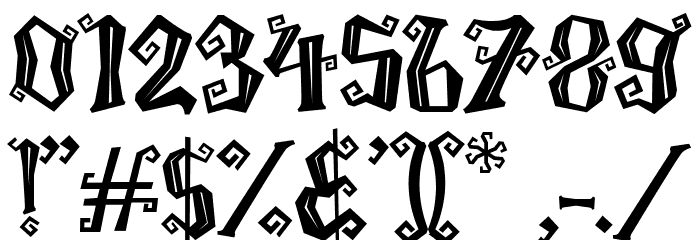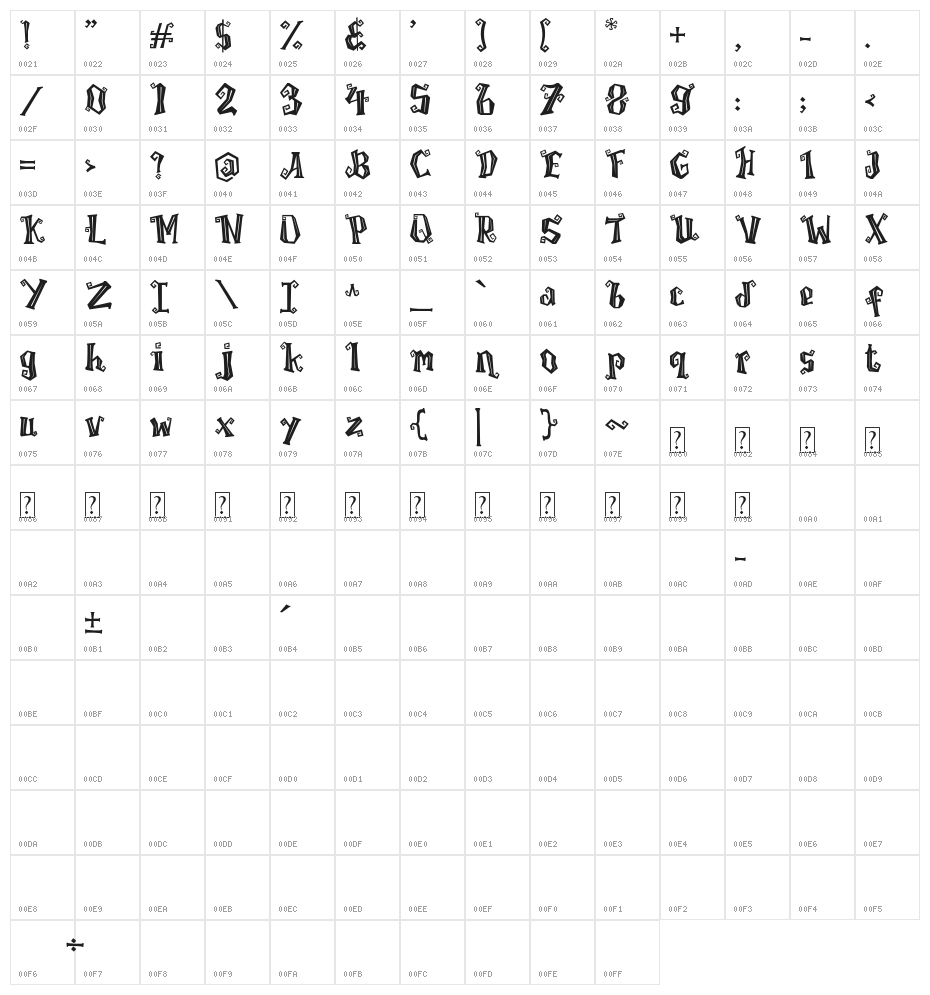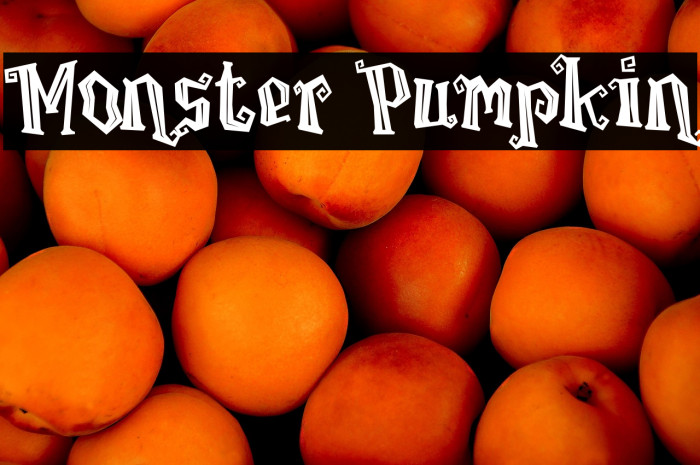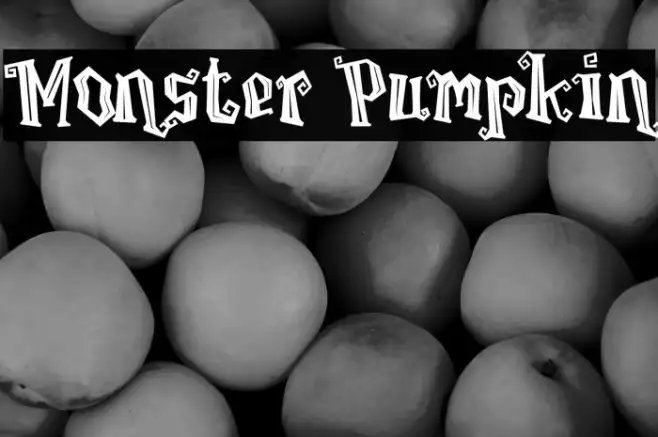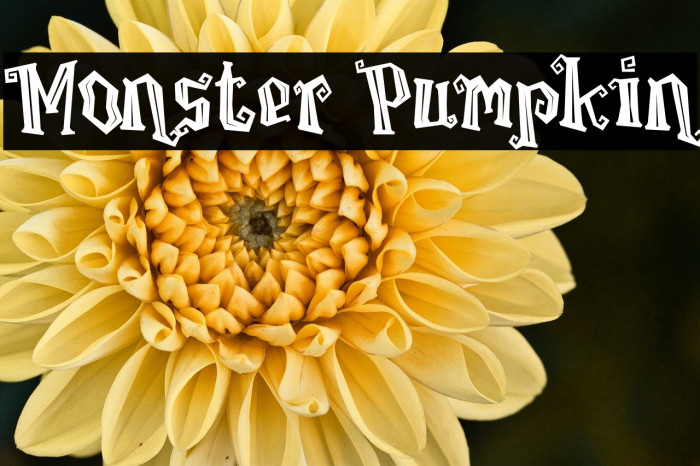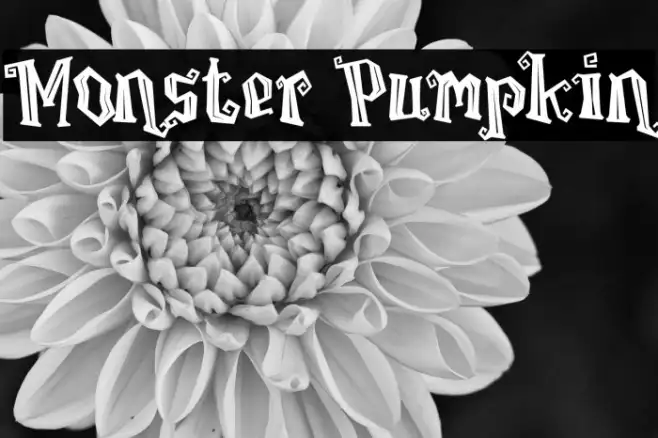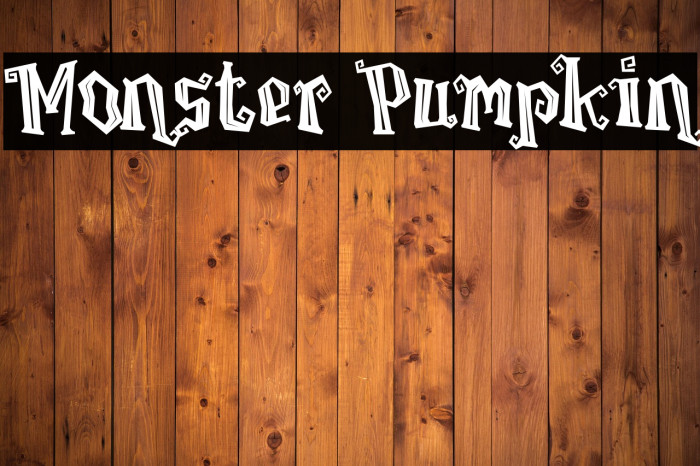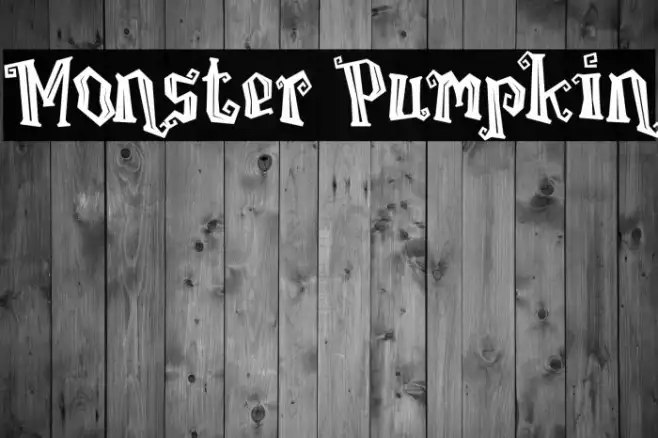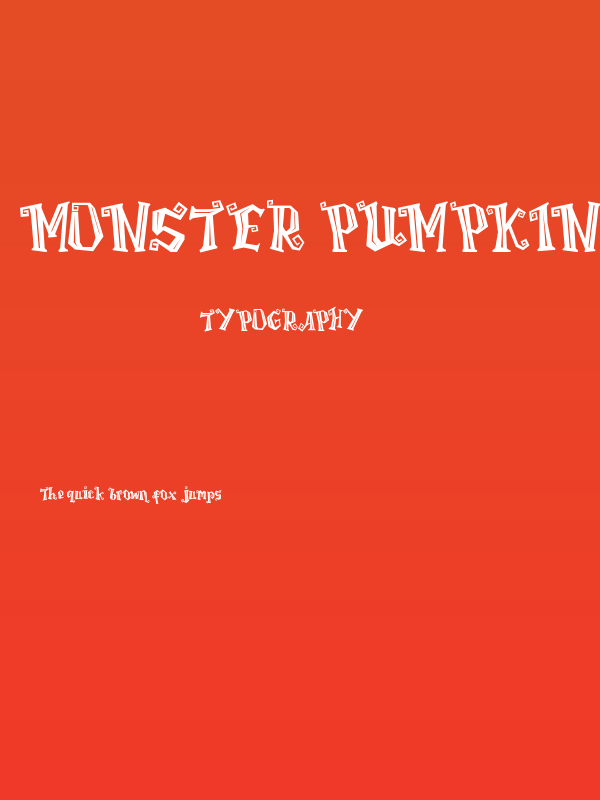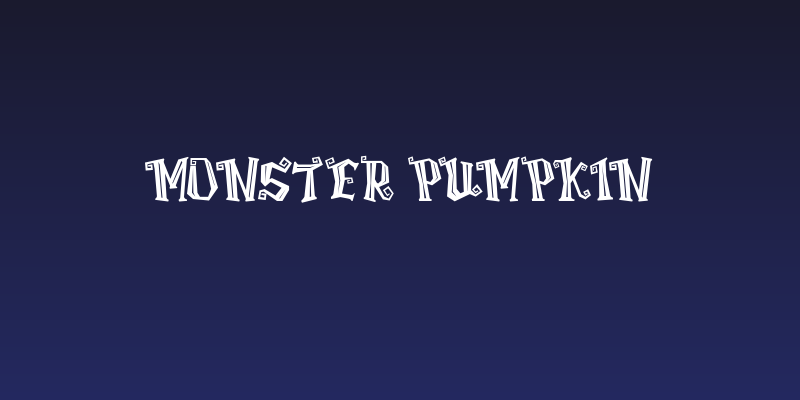
Monster Pumpkin Font
Monster Pumpkin Description
This font features a bold, playful design with a spooky, Halloween-inspired aesthetic. The characters are uniquely crafted with sharp angles and exaggerated serifs, giving them a quirky, cartoonish appearance. The uppercase and lowercase letters maintain a consistent style, with each character displaying a distinctive, jagged outline. Numbers and special characters follow the same thematic design, making the font cohesive and visually striking. The overall look is reminiscent of classic horror themes, making it perfect for seasonal projects or anything requiring a touch of whimsy and fright.
| Proposed Projects | Ideal for Halloween-themed posters, party invitations, horror movie titles, and themed merchandise. |